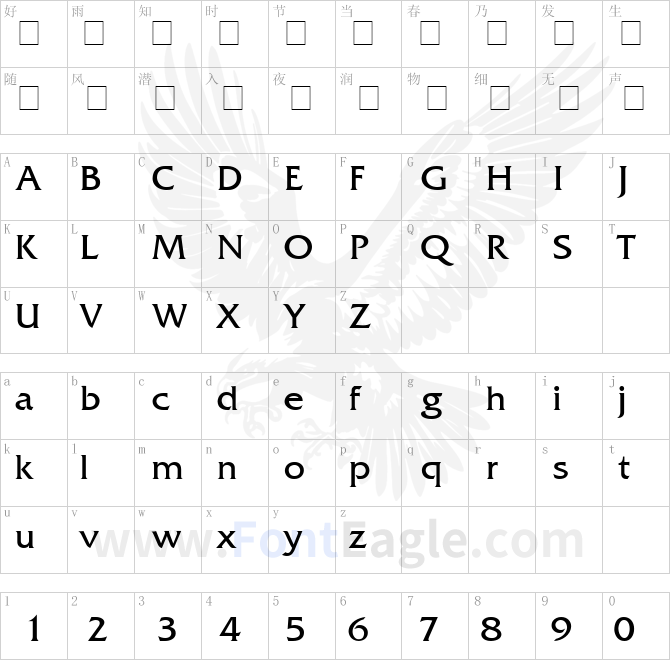
FrizQuadrata is a great font, widely used in graphic design, single-page menu design, poster design and other fields, and is deeply loved by designers.FrizQuadrata download.